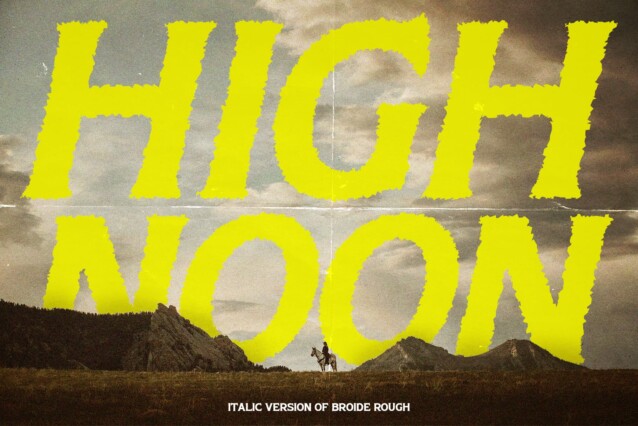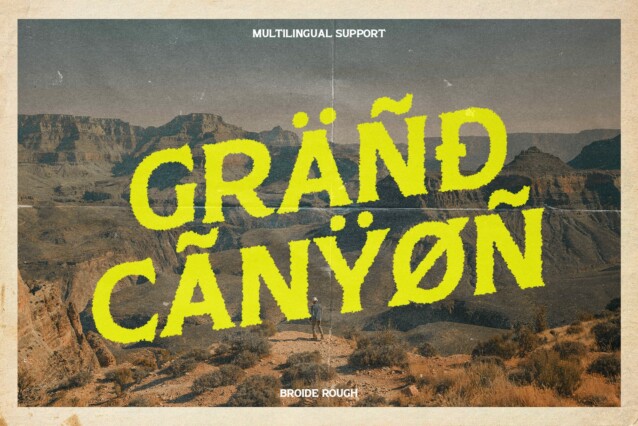
Broide Rough Font
Broide Rough Font is a display serif font that evokes a classic and captivating retro vibe with its distinctive rough effect. The textured, rugged character added by the rough effect enhances the uniqueness of this font, making it ideal for designs that seek to showcase a strong vintage touch.
Classic and Captivating Retro Vibes
The timeless appeal of Broide Rough lies in its ability to blend classic serif elements with a rugged, textured finish. This combination creates a captivating retro aesthetic, perfect for posters, branding, and promotional materials that require a striking and distinctive look.